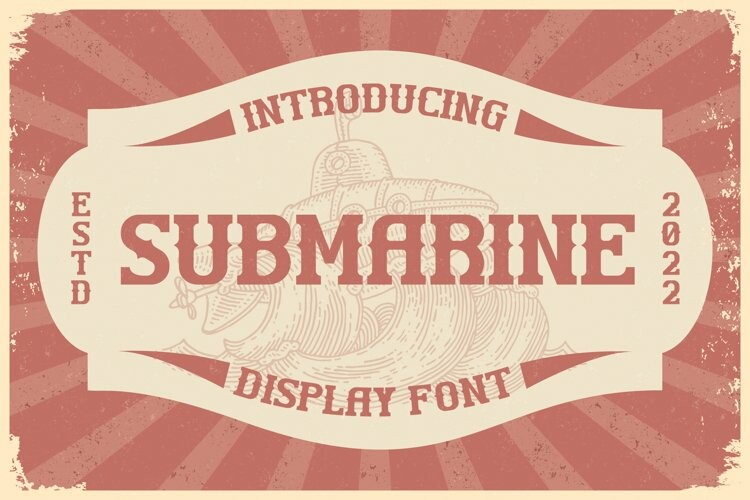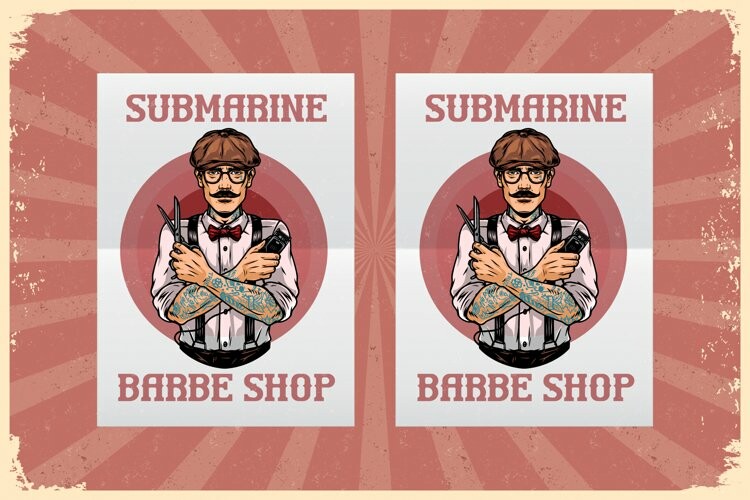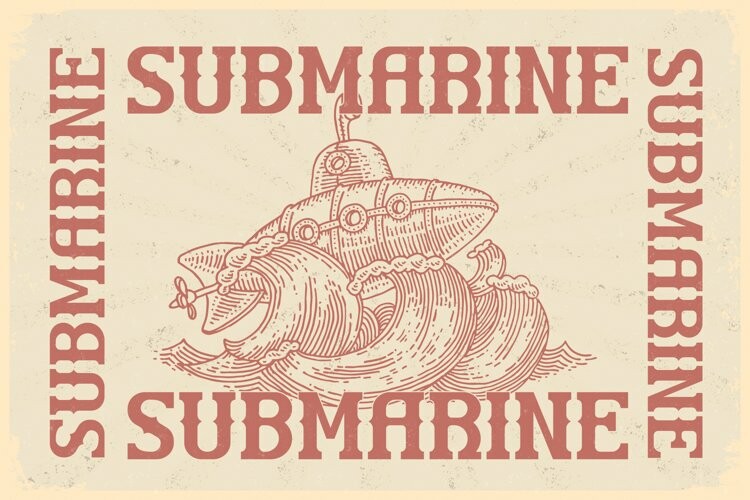
Submarine Font
Submarine FontProudly present SUBMARINE Typeface, created by Storytype,
A serif modern and classic typeface that has own unique style & modern look.
This typeface is perfect for an elegant & luxury logo, book or movie title design, fashion brand, magazine, clothes, lettering, quotes, and so much more.